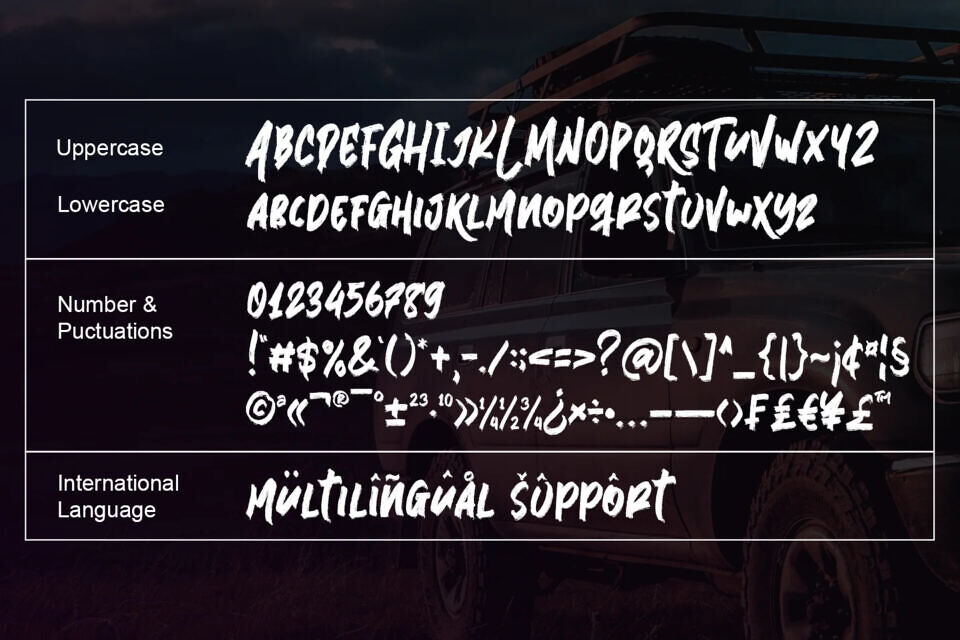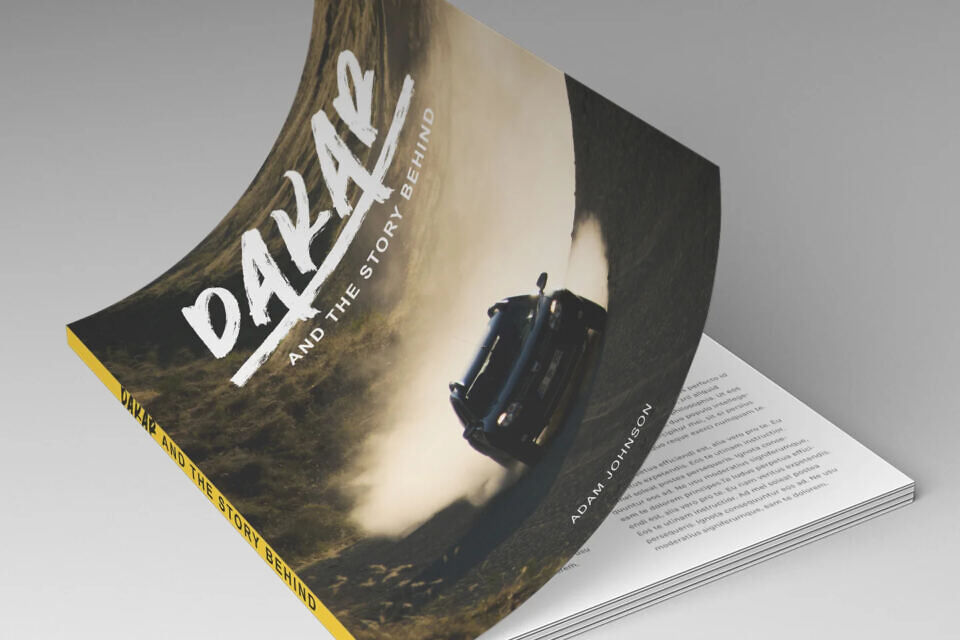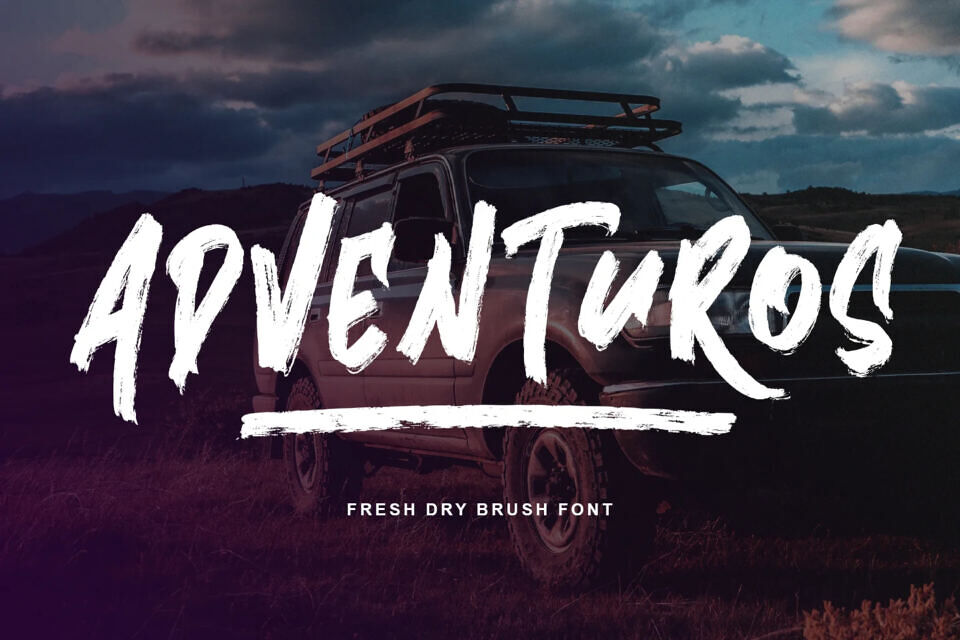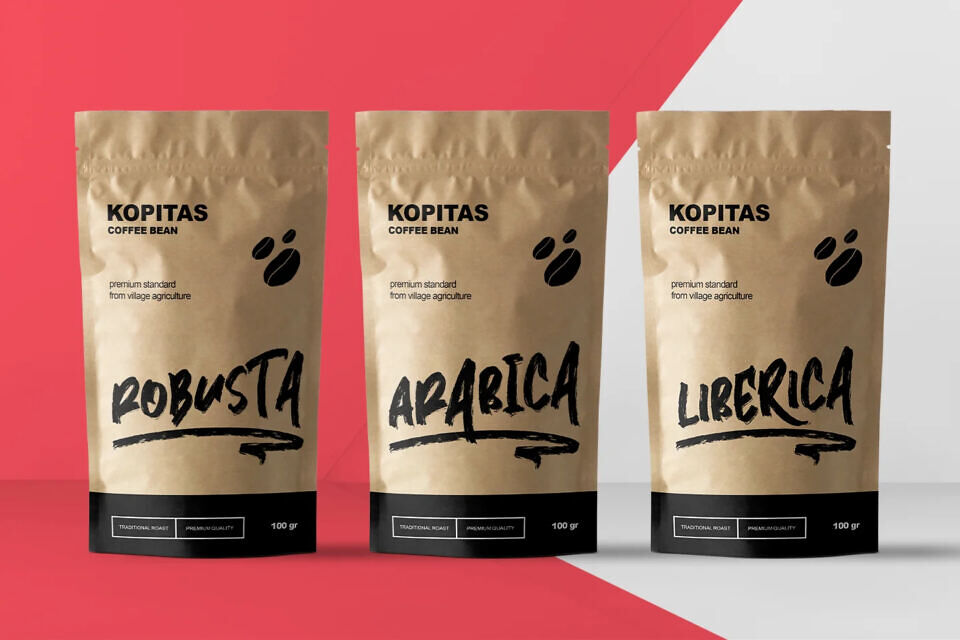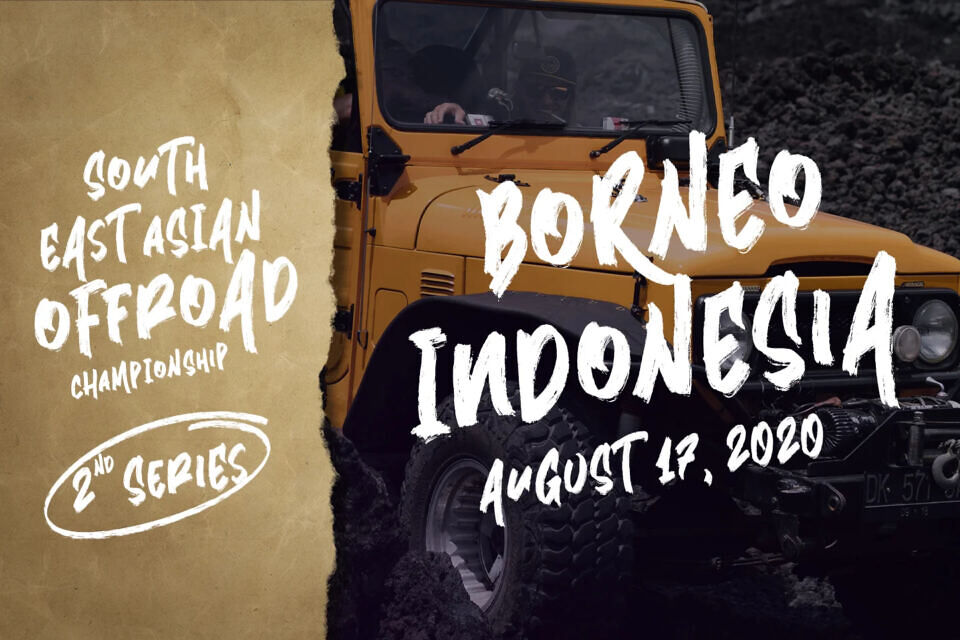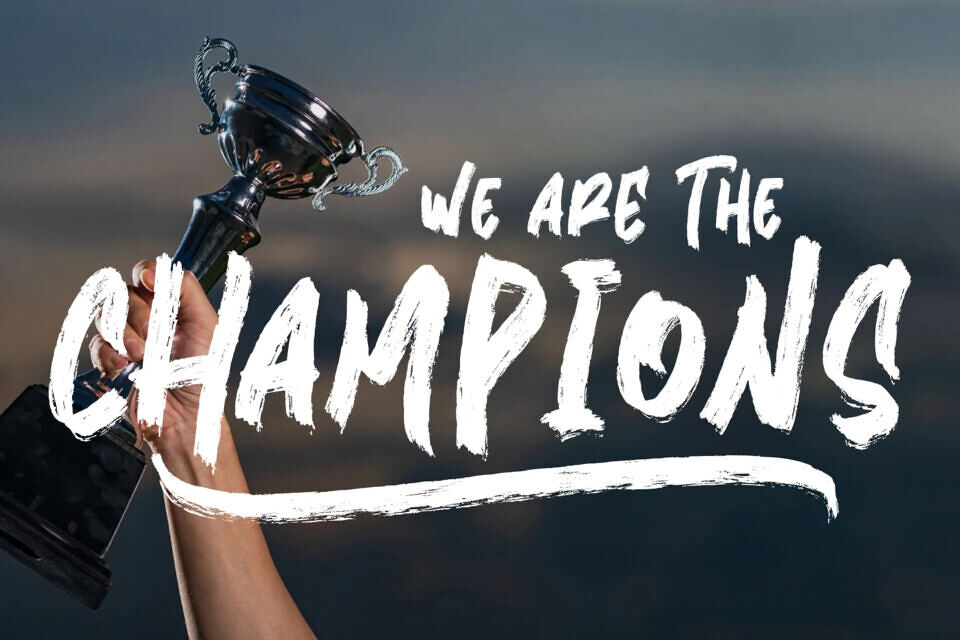
Adventuros Font
Adventuros is a fresh dry brush font by Abo Daniel. Great for branding, packaging, logos, cards, apparel, quotes, banner, social media, and another project that needs urban style.
The font is All Capital, but the uppercase and lowercase characters are totally different. You can combine them as you like. There’s also 52 swash to complete this product.